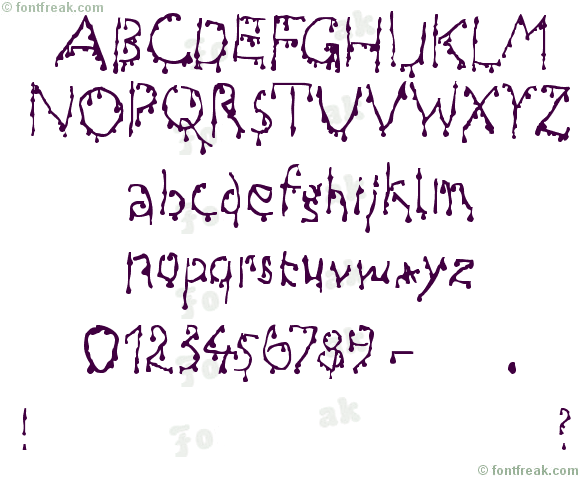
Draculas
About Draculas
Draculas by Manfred Klein is a decorative font that exudes a unique, whimsical charm, making it a standout choice for various creative projects. This freeware font, originally released in 1991 and updated in 2005, showcases a playful yet slightly eerie aesthetic that perfectly captures the essence of its namesake. The typeface features irregular stroke weights and a distinctive, jagged character design that conveys a sense of fun and fantasy. The spacing between the letters is carefully balanced, allowing for readability while maintaining its decorative appeal, making it an excellent choice for eye-catching designs.
The Draculas font is particularly well-suited for specific use cases, such as Halloween-themed invitations, where its quirky style can set the tone for a spooky gathering. It also works wonderfully for movie posters, especially in genres like fantasy or horror, where a touch of whimsy is desired. Restaurant menus that aim for a playful, casual vibe can benefit from this font, as can merchandise for events that focus on fun and creativity, such as craft fairs or festivals. Graphic designers and content creators will find this font invaluable when looking to add a distinctive flair to their work.
Targeted at graphic designers, small business owners, and content creators, the Draculas font free download provides an accessible option for those seeking to infuse their projects with personality and character. Its unique design elements and playful nature make it a memorable choice that stands out from more conventional typefaces. Whether you’re crafting a quirky invitation or designing a captivating poster, Draculas brings an enchanting touch that is sure to captivate your audience.